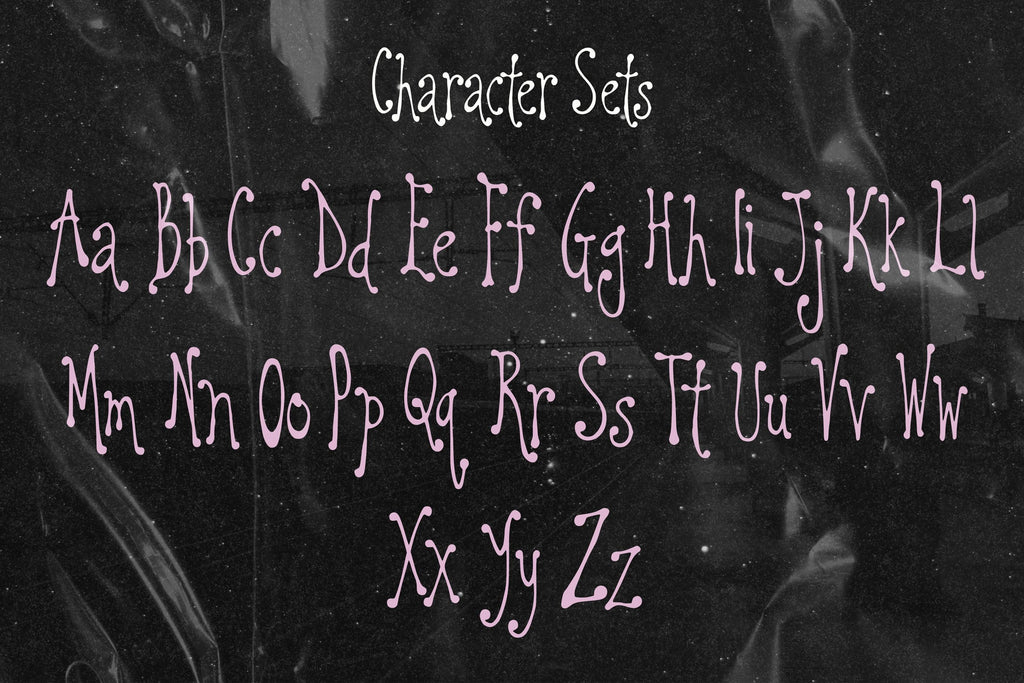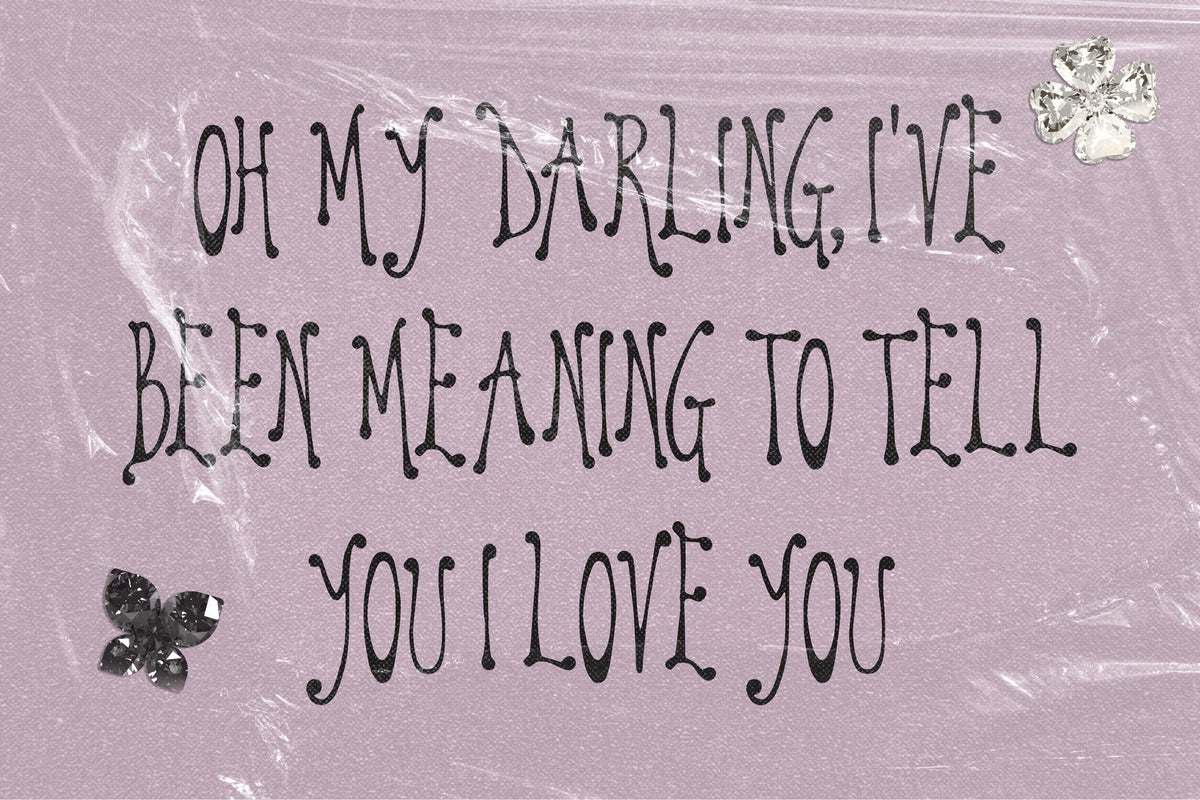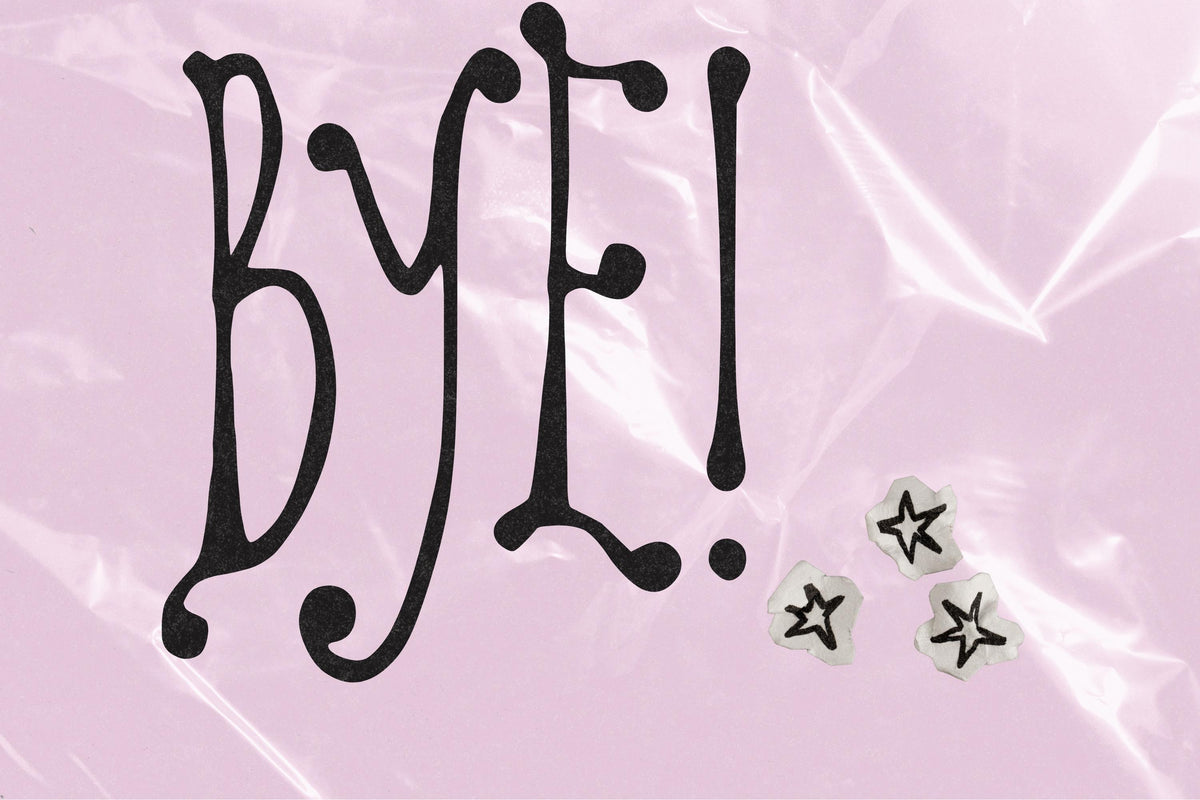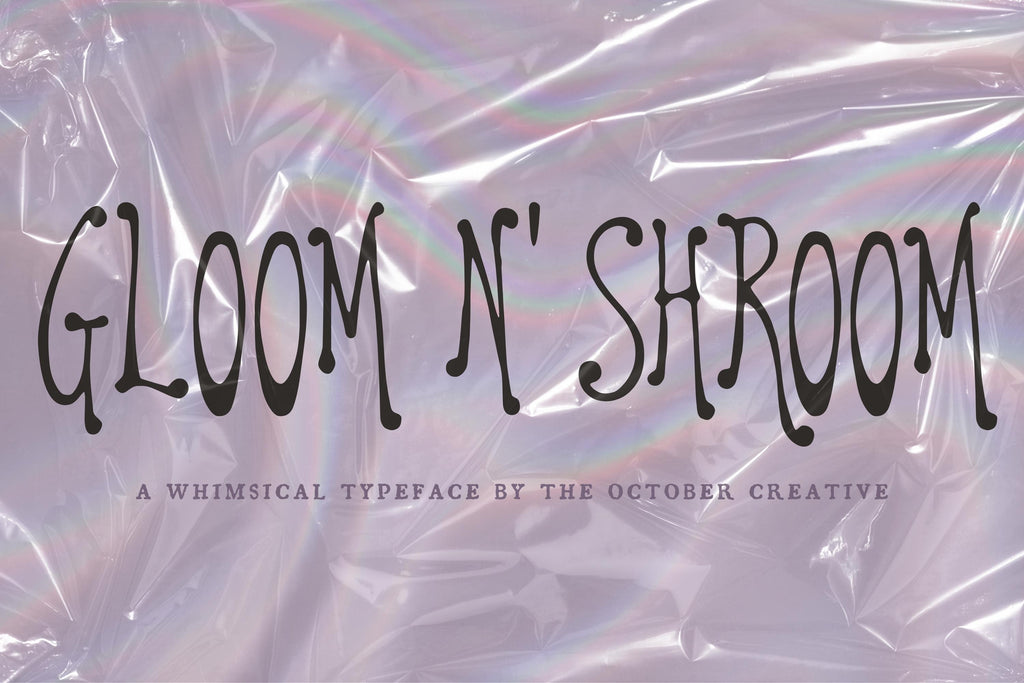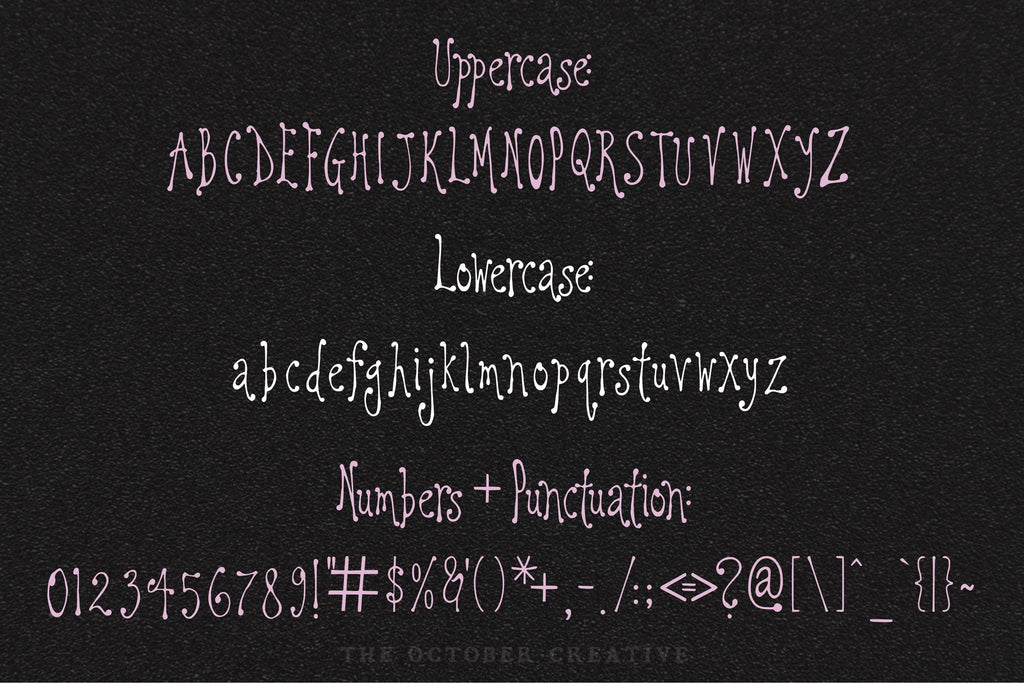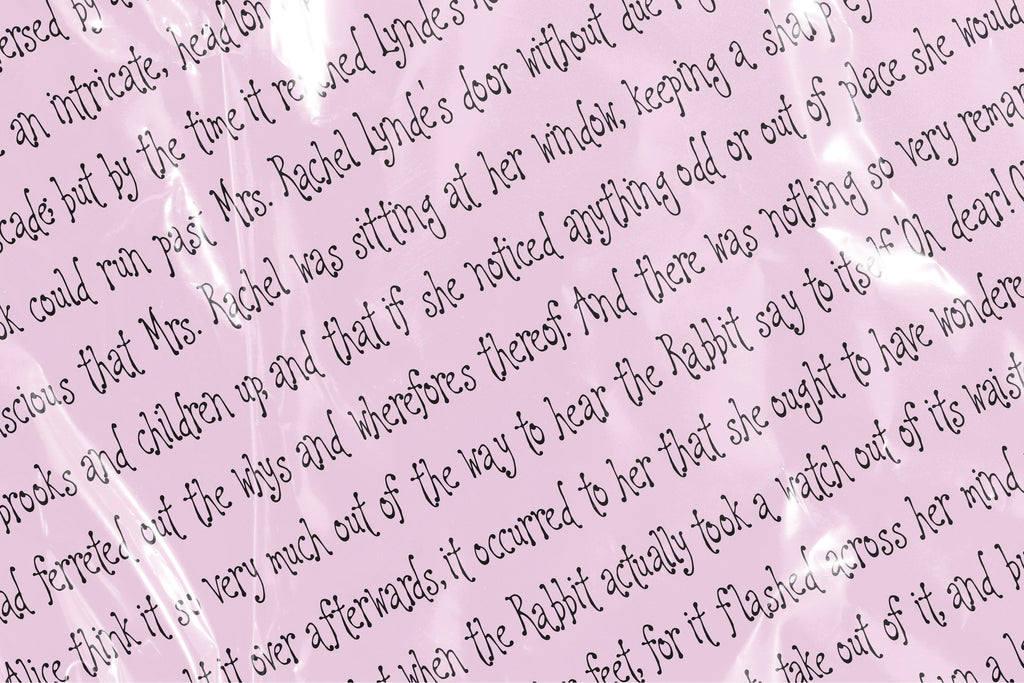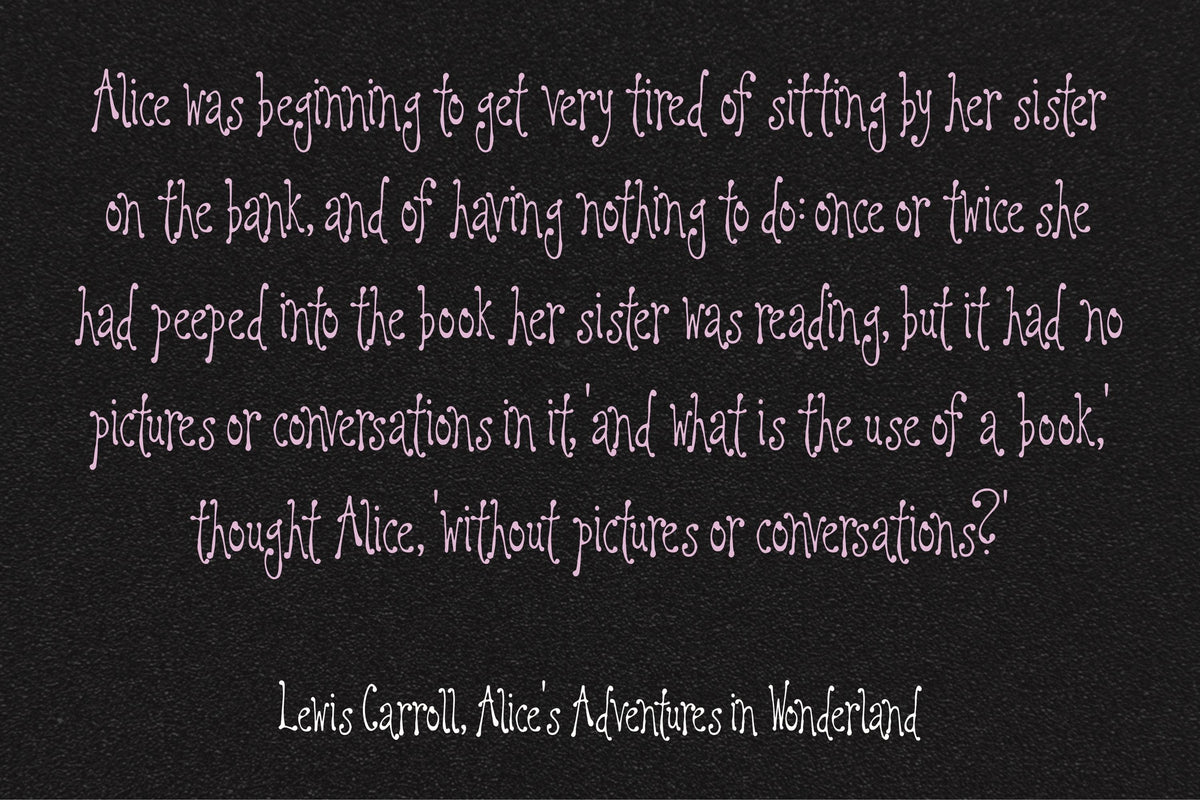
Gloom N' Shroom Font
Gloom N' Shroom has tall, rounded letters with soft tops that bring a gentle touch to woodland projects. It's a lovely companion for cottage garden labels, nature journals, and prints for a cozy little corner.